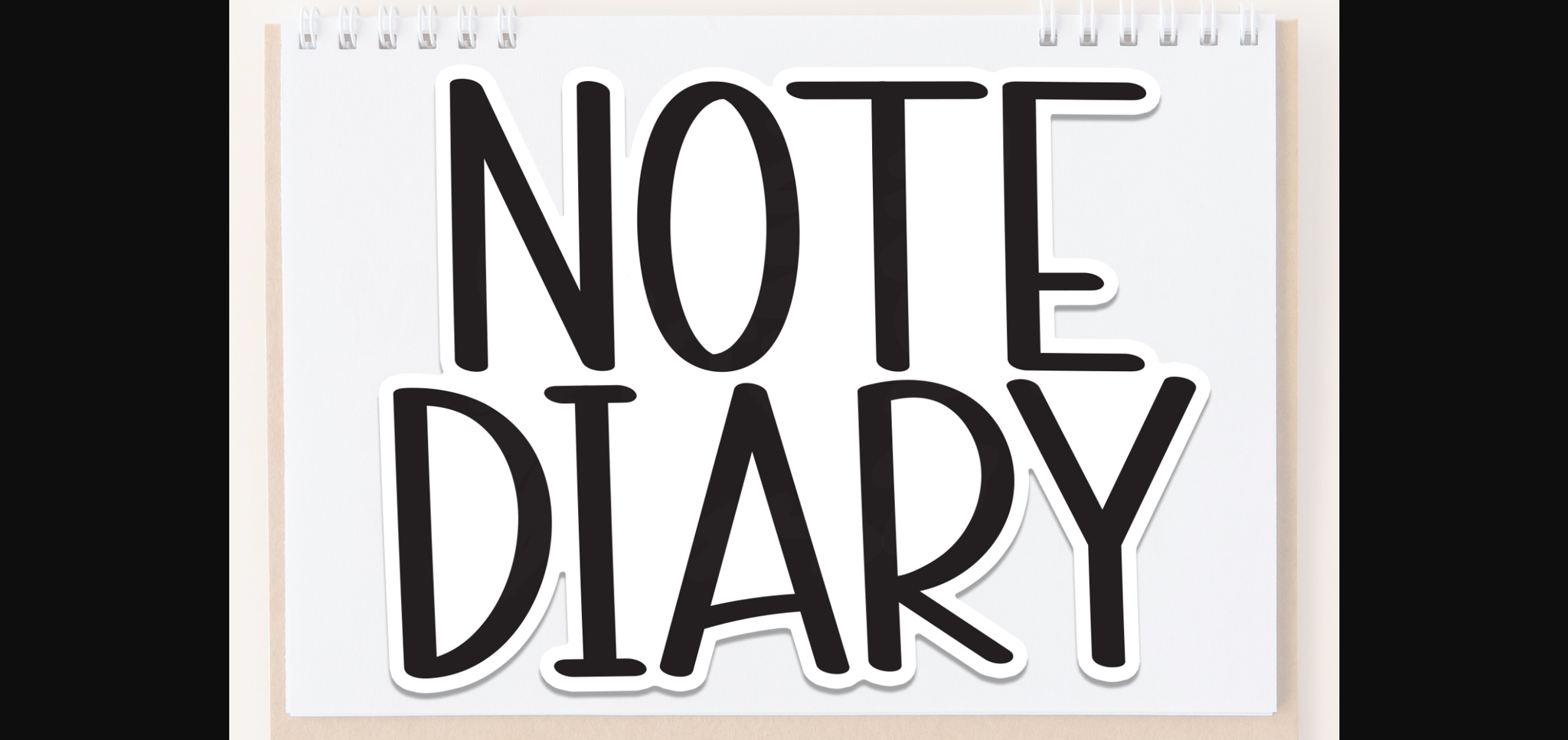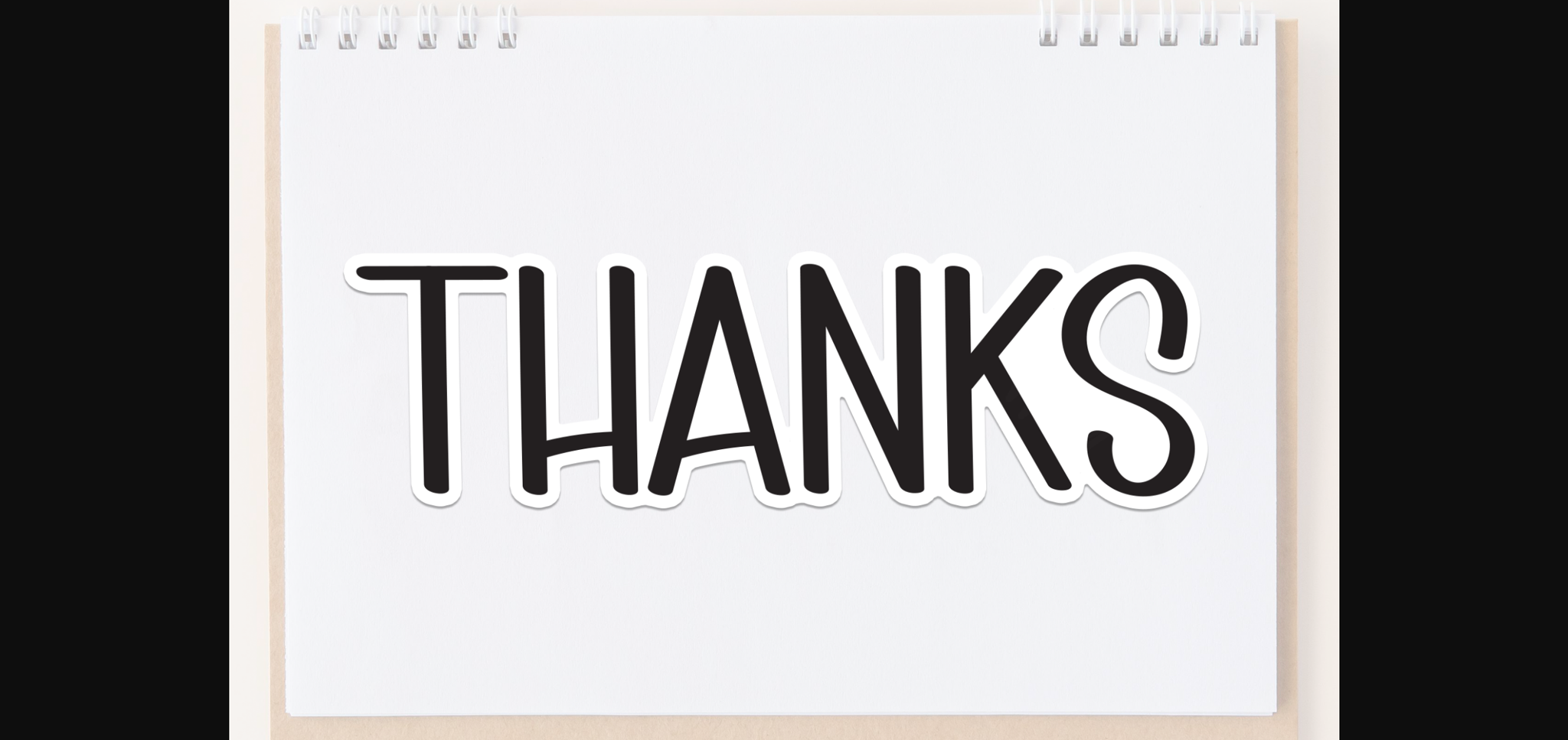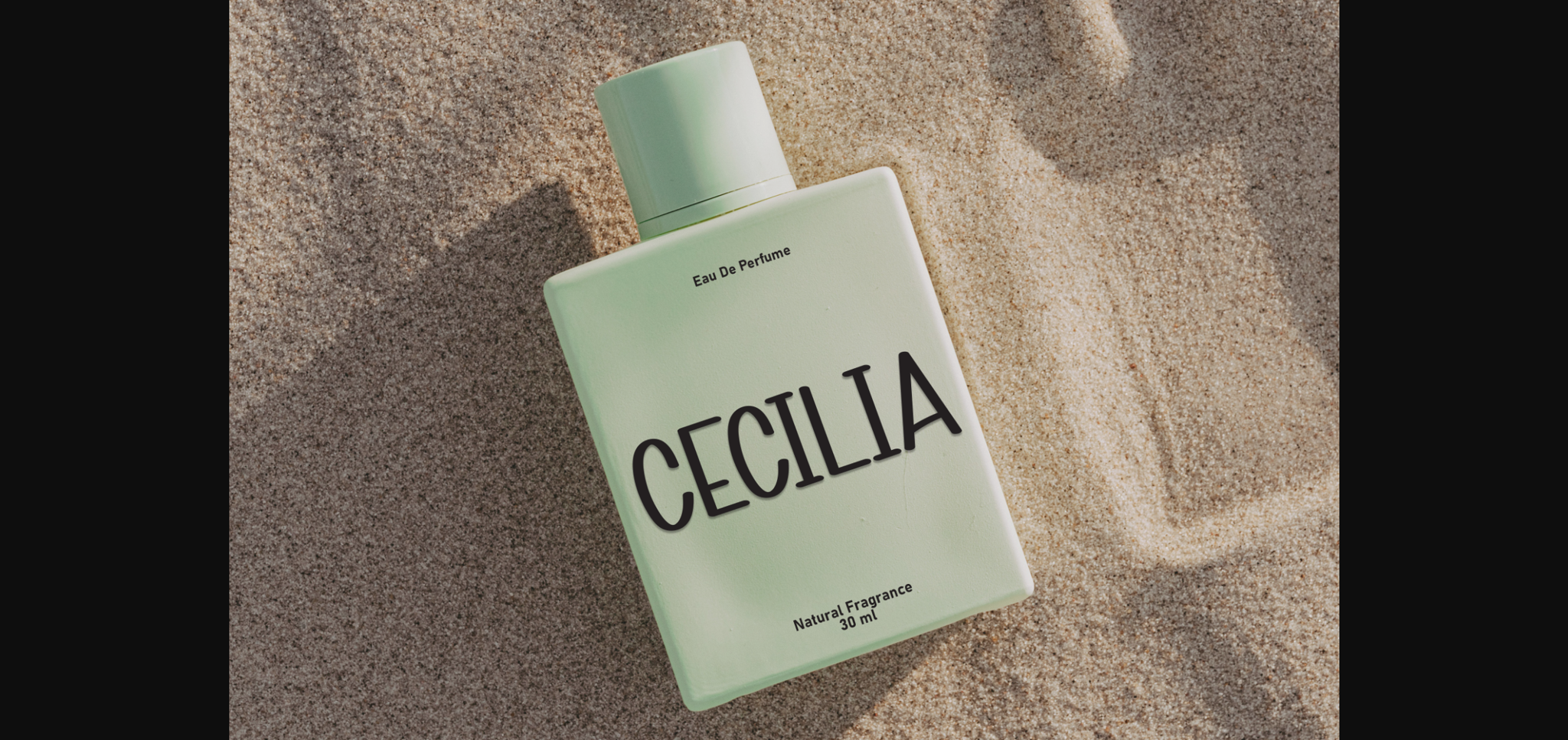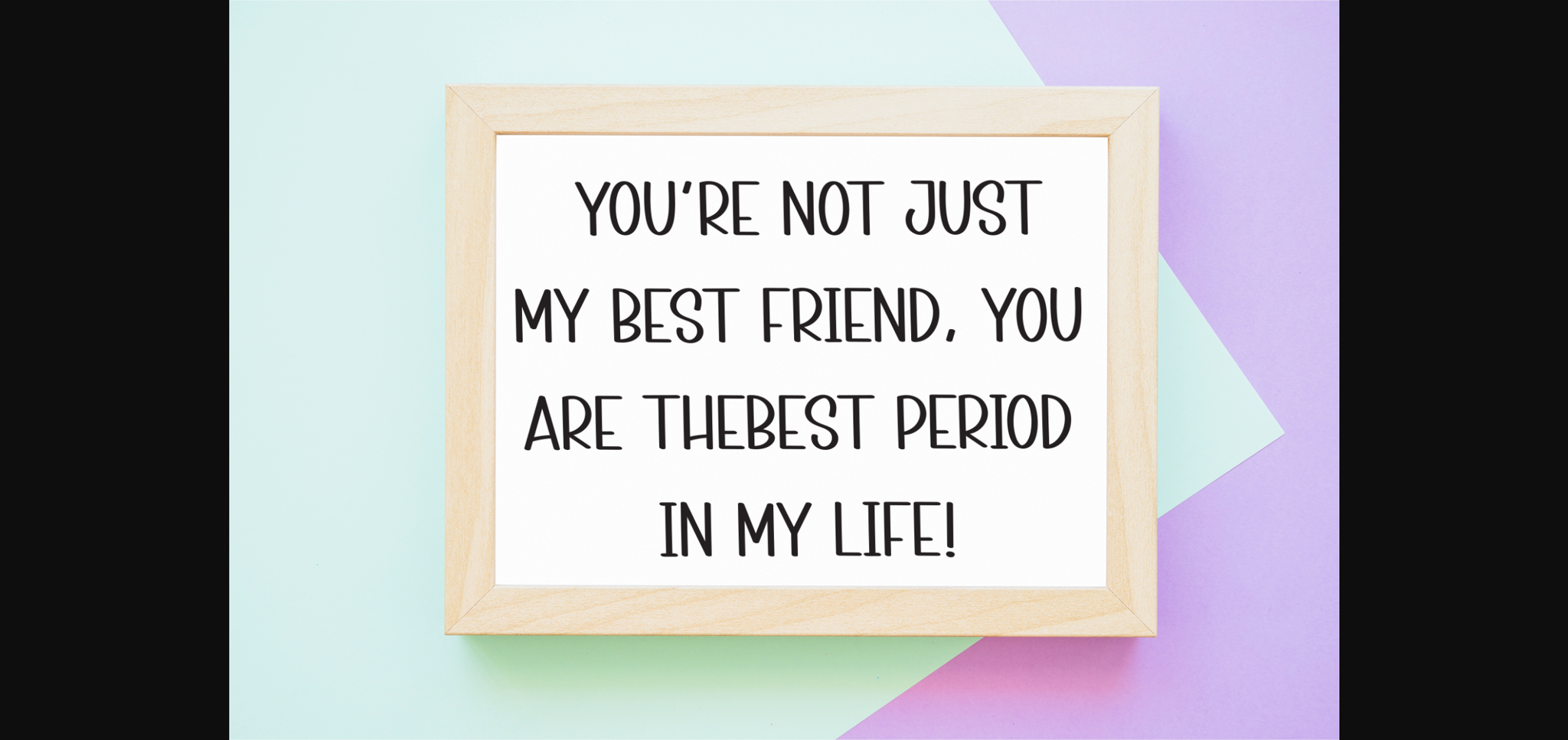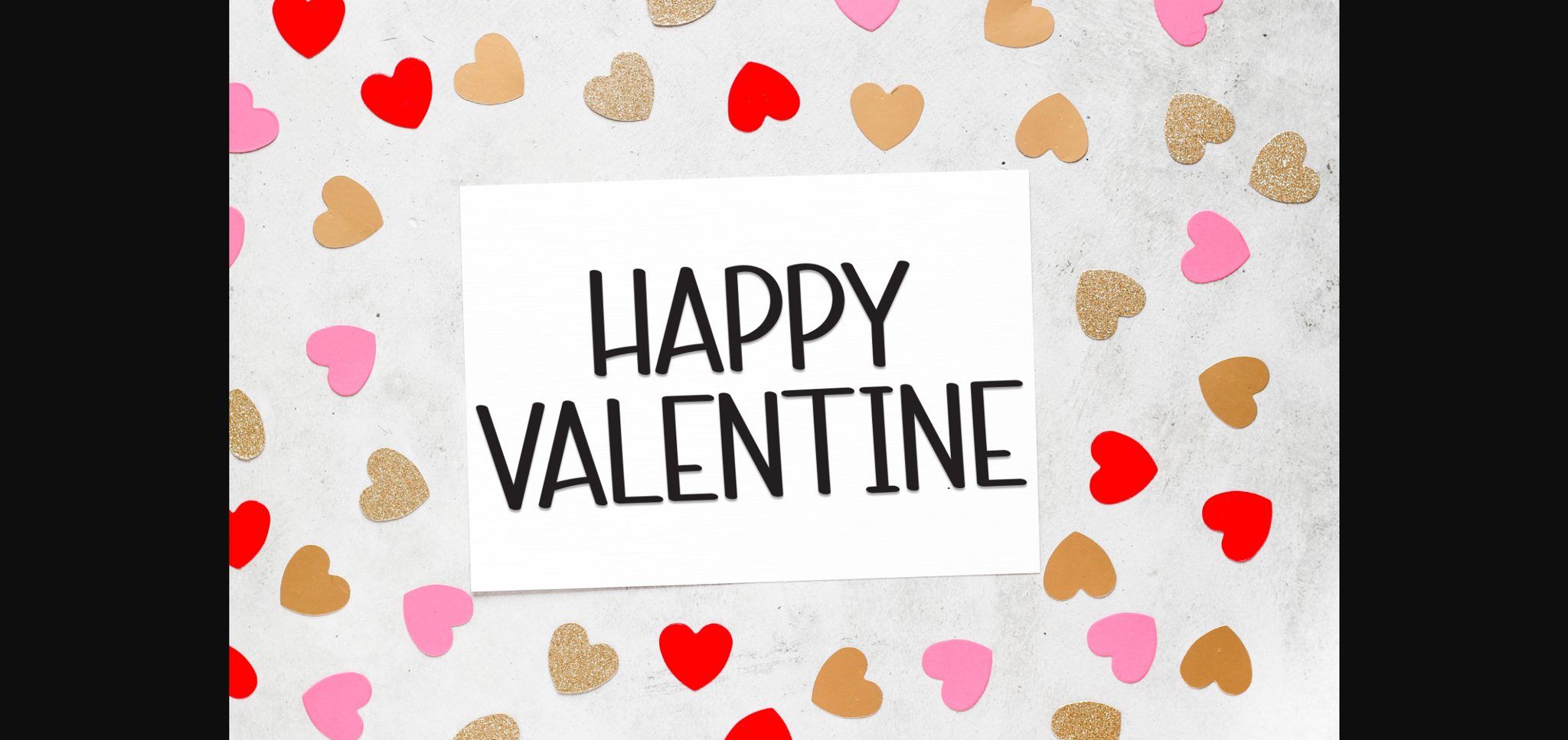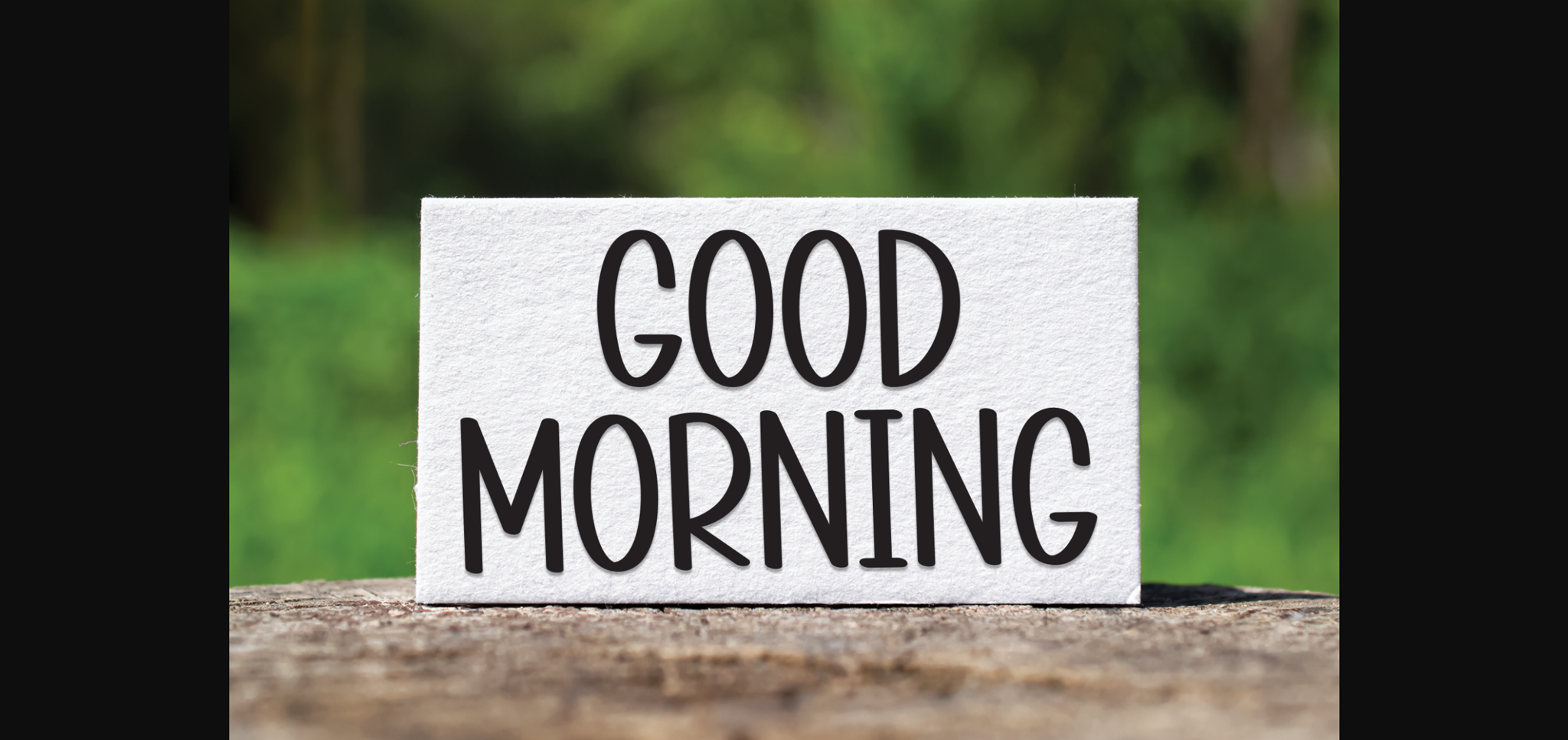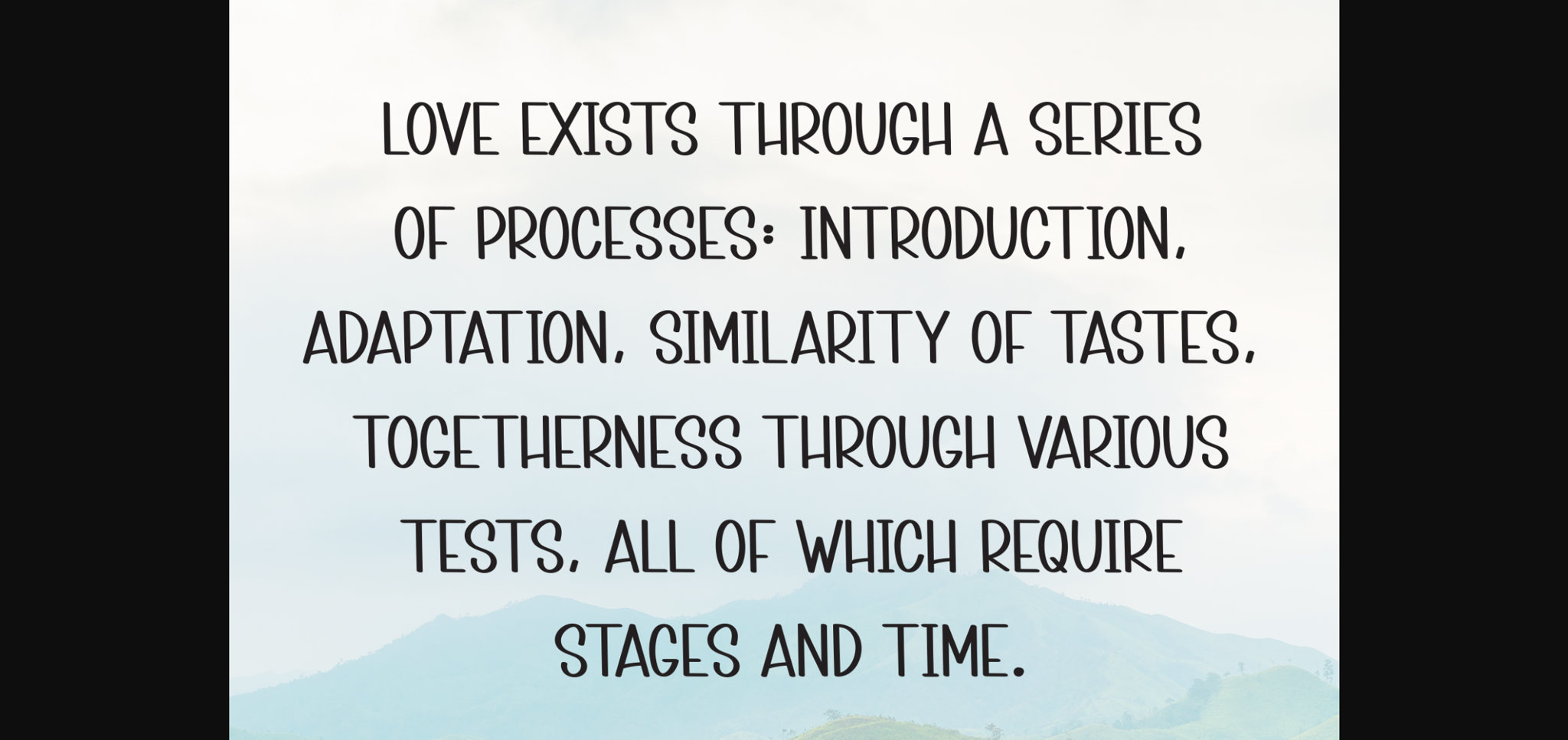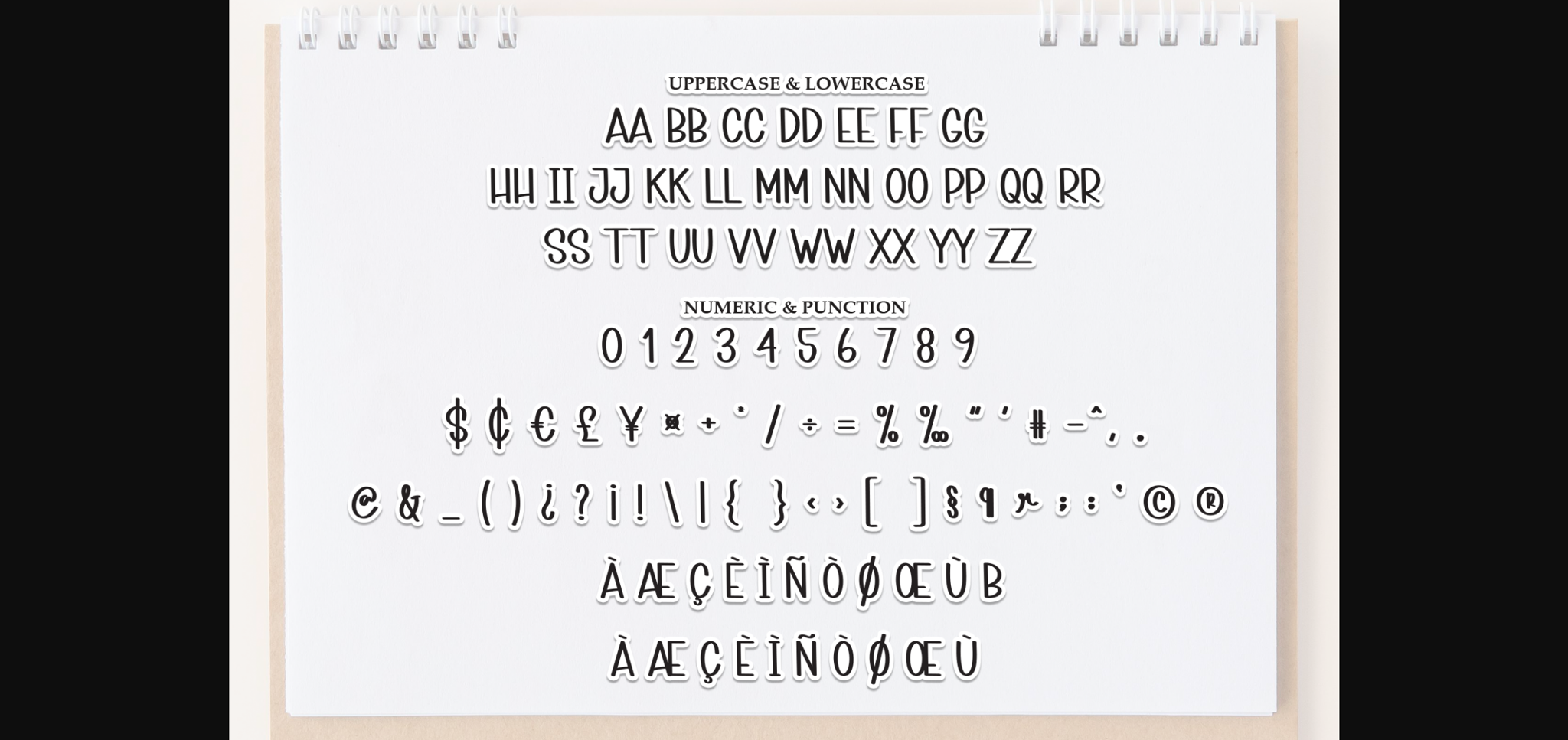
Note Diary Font
About Note Diary Font
Note Diary is a sweet and friendly sans-serif font. Cute yet versatile, this font is ideal for writing wedding invitations, cards, or any other design that might need a lovely touch!